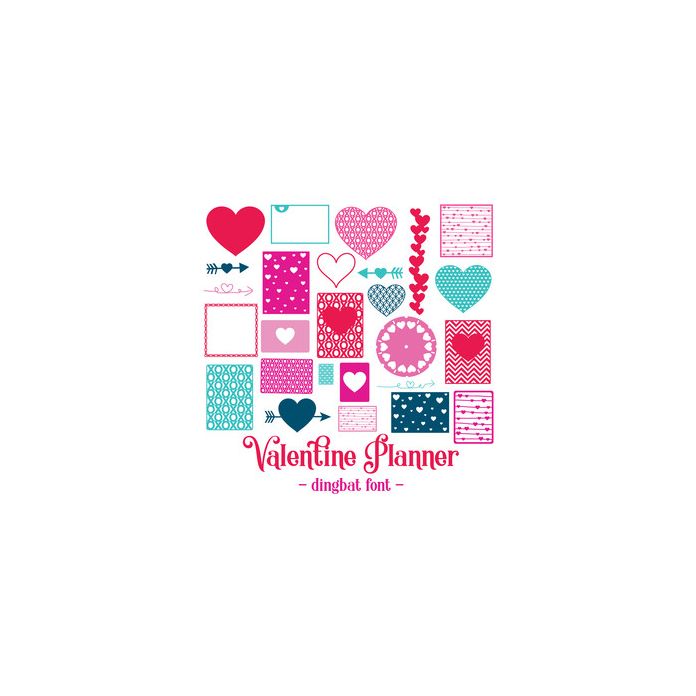
Valentine Planner Dingbat Font. Contains 26 individual elements perfect for valentine projects and planners. My other fonts can be found in the Silhouette store. For more design ideas, coordinating designs & products and inspiration, please visit my blog or website.